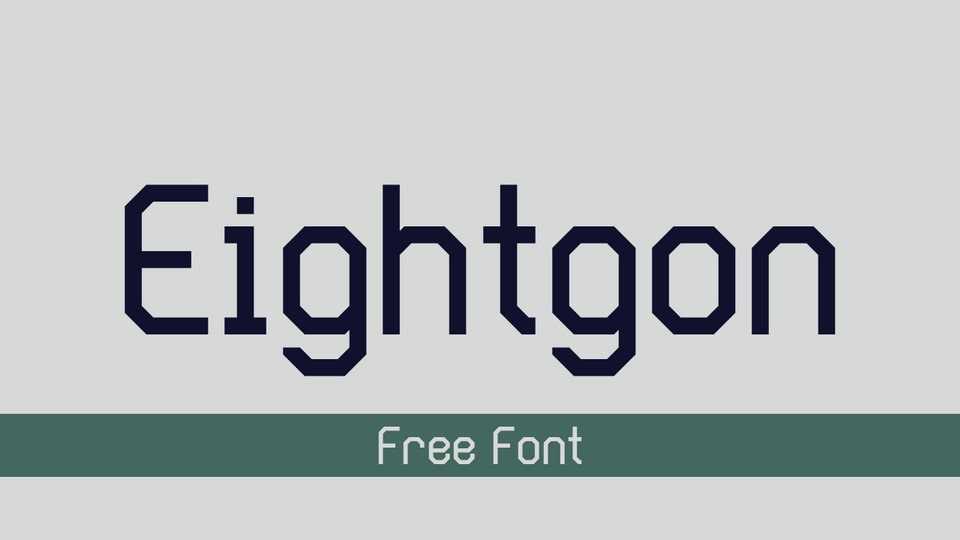
Download Eightgon font, a striking display typeface defined by its bold octagonal shapes and futuristic aesthetics. With sharp angles and precise geometry, this typeface captures the essence of modern technology.